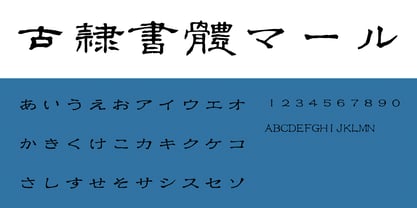
MRKoreisho
by MAAR-sha
The MRKoreisho Font Family was designed by and published by MAAR-sha. MRKoreisho contains 2 styles and family package options. More about this family
This font is based on the book "Display Typeface Collection: Classic Clerical Script Dictionary" originally compiled by Yoshitaro Yukawa and edited by MAAR Co. Editorial Team.
It features characters selected from the two-volume "Zuitou Tensaireisougyoureisen" published in 1881 (Meiji 14), including glyphs from JIS Level 1 standards as well as commonly used characters in place names and personal names. Since the original compilation was done during the Meiji era, some characters are preserved in their traditional forms.
Its retro aesthetic makes it ideal for applications such as café menus, signage, and poetry book designs.